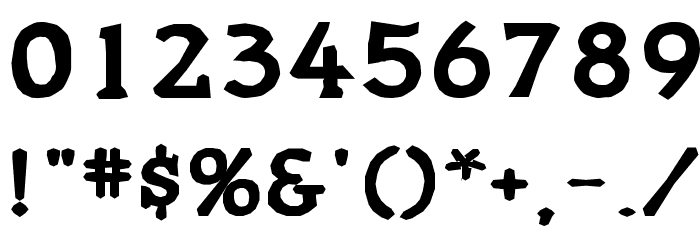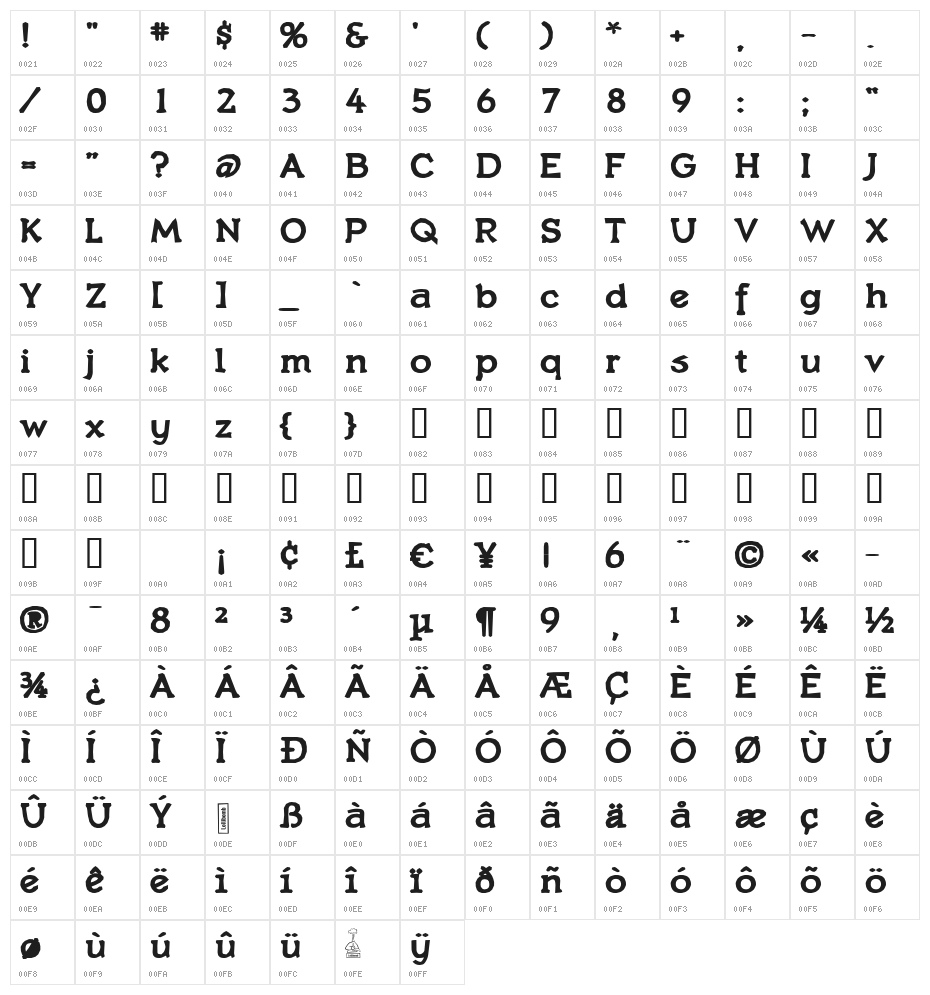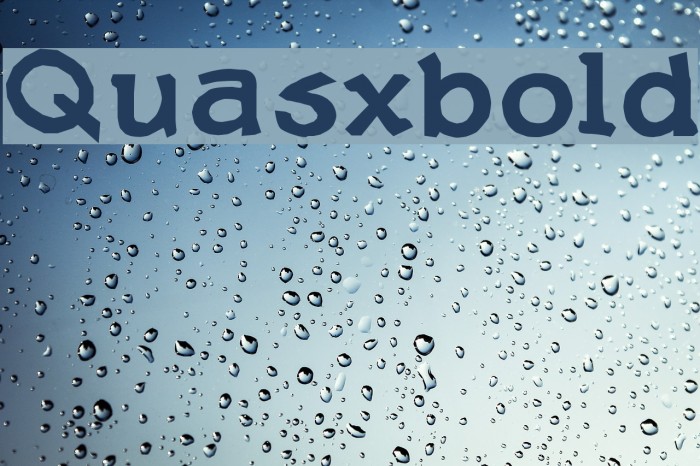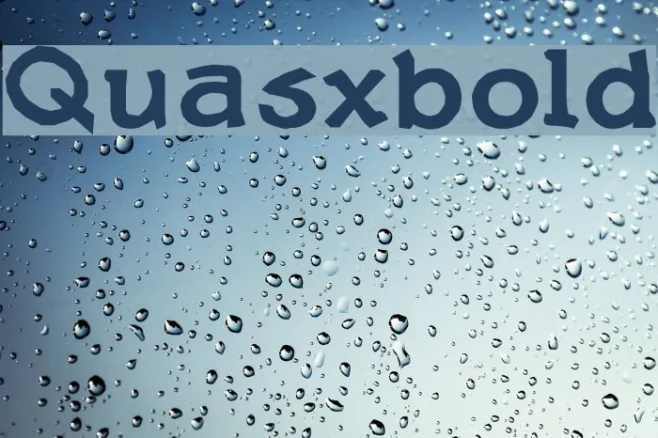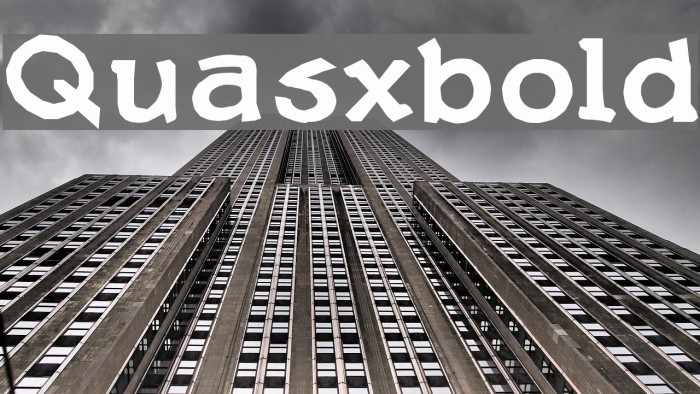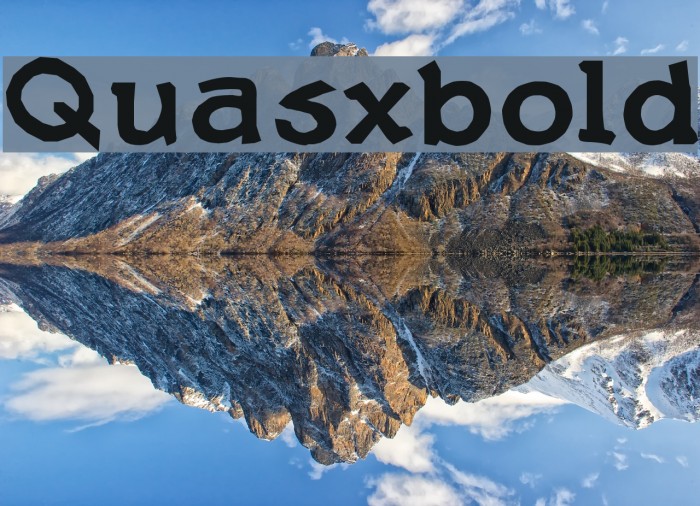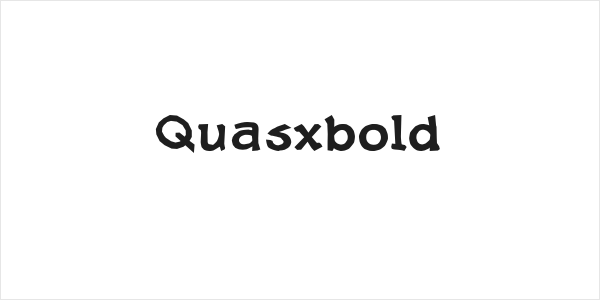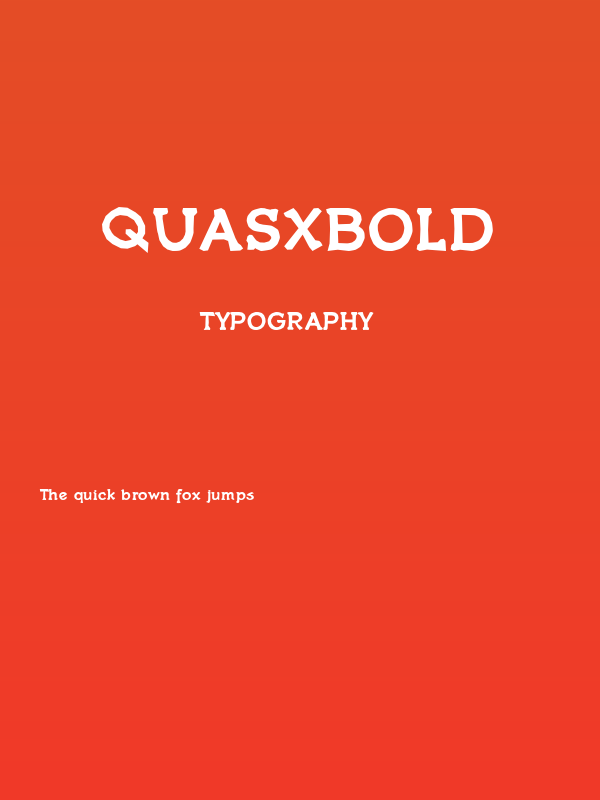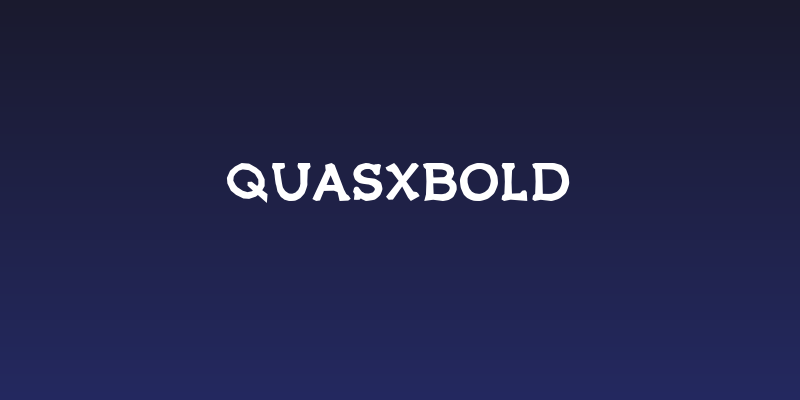
Quasxbold Font
This font features a bold and playful design with a slightly irregular and handcrafted appearance. The characters have a strong presence with thick strokes and subtle curves, giving it a unique and dynamic look. The uppercase and lowercase letters maintain a consistent style, while the numerals and special characters complement the overall aesthetic. The font's boldness and distinctive character make it suitable for eye-catching designs and creative projects.
| Overall Style | Playful, Handcrafted |
| Proposed Projects | Ideal for posters, branding, children's books, and creative advertising. |